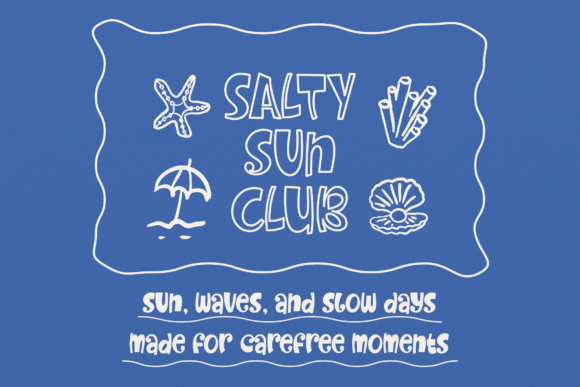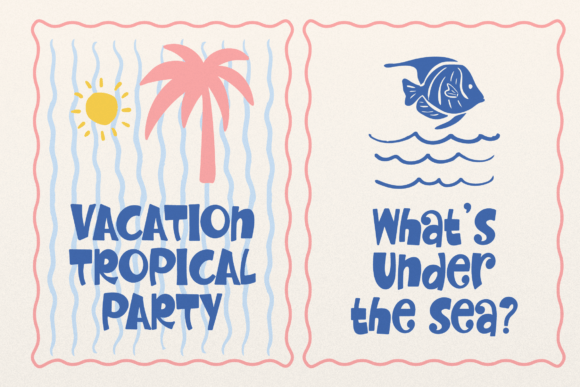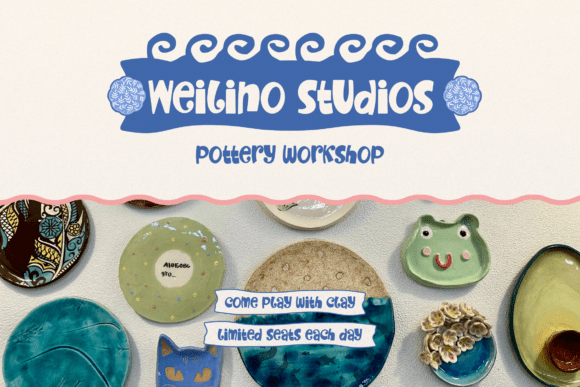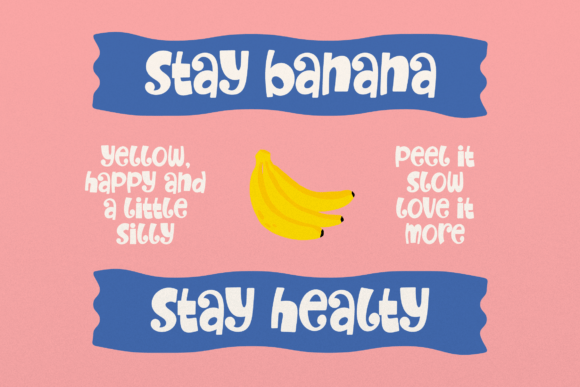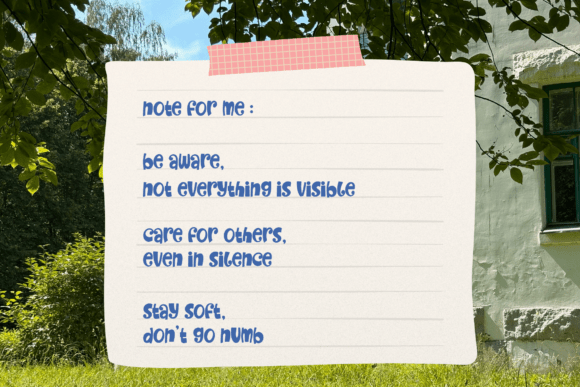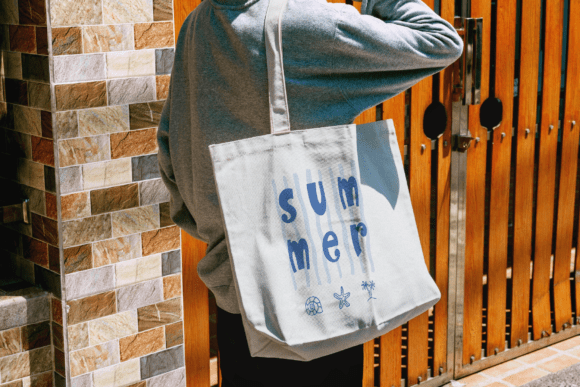
Soak up the Rays with Diglet Sunsin: The Ultimate Font for Tropical Vibes
Are you looking for a font that captures the essence of a tropical getaway? Do you want to infuse your creative work with a carefree, summer vibe? Look no further than Diglet Sunsin, a vibrant, hand-drawn font designed to bring a burst of sunshine to your designs. In this article, we’ll dive into the features and benefits of Diglet Sunsin, and explore how this playful typeface can elevate your branding, marketing materials, and creative projects.
A Font that’s as Unique as a Sunset
Diglet Sunsin is a one-of-a-kind font that embodies the spirit of a tropical paradise. With its bouncy, organic letterforms and charming “retro-vacation” vibe, this font is sure to transport your audience to a world of sun-kissed beaches and endless summers. The font features soft curves and a high-impact “summer-camp” personality that’s perfect for creating eye-catching designs that demand attention.
Dual Versions for Endless Creative Possibilities
Diglet Sunsin comes in two versatile versions: Regular (solid) and Outline. The Regular version is perfect for creating bold, statement pieces, while the Outline version offers a more subtle, sophisticated look. Whether you’re designing a logo, brochure, or social media header, Diglet Sunsin has got you covered.
Ideal for a Range of Creative Projects
So, what can you create with Diglet Sunsin? The possibilities are endless! Here are some ideas to get you started:
- Independent Swimwear Branding: Create eye-catching labels and packaging that capture the essence of a summer beach vibe.
- Boutique Tropical Cafes: Design menus, flyers, and social media headers that transport customers to a tropical paradise.
- Children’s Summer Book Titles: Bring your story to life with a font that’s as playful and adventurous as your target audience.
- High-Energy Travel Vlogger Social Media Headers: Create attention-grabbing headers that showcase your travels and adventures in style.
Why Choose Diglet Sunsin?
So, what sets Diglet Sunsin apart from other fonts on the market? Here are just a few reasons why designers and crafters love this font:
- Unique and Playful: Diglet Sunsin is a one-of-a-kind font that’s sure to add a touch of personality to your designs.
- Versatile: With both Regular and Outline versions, you can create a wide range of designs, from bold and playful to subtle and sophisticated.
- Easy to Read: Despite its playful nature, Diglet Sunsin is surprisingly easy to read, making it perfect for body text and headlines.